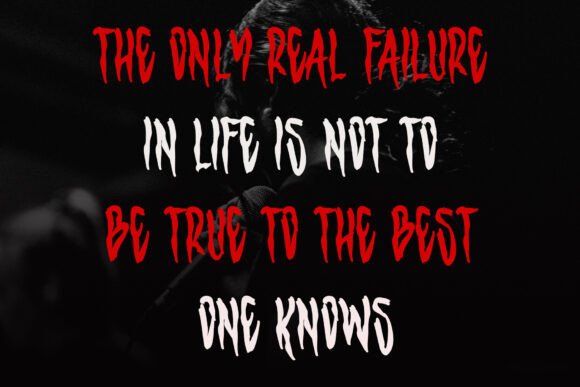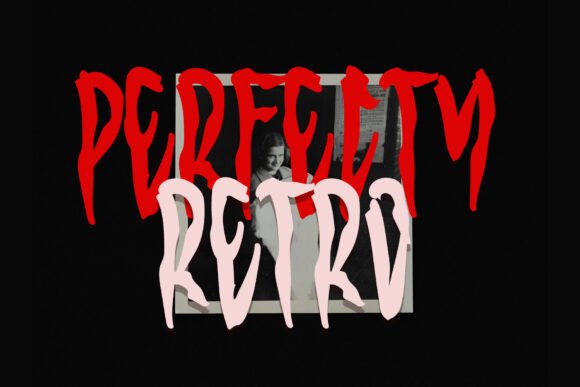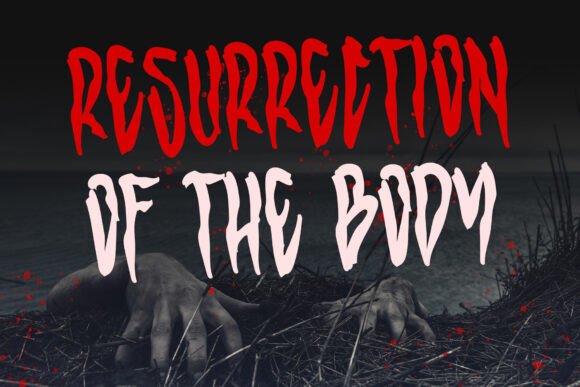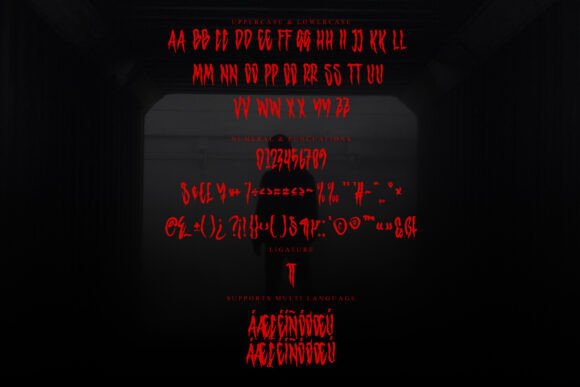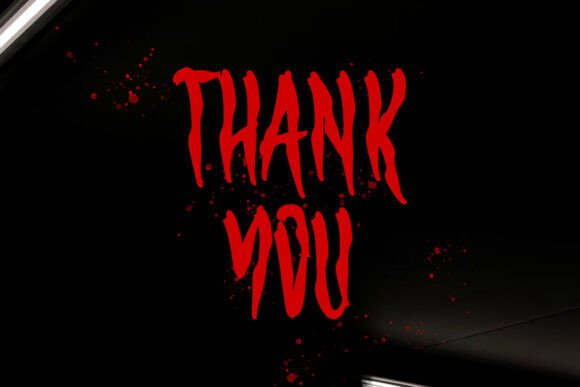
Introduction to Scared Display Font
Scared Display is a horror-inspired font designed to evoke a chilling and eerie atmosphere.
With its jagged, irregular letterforms and unsettling distortions, this font creates a sense of fear, mystery, and darknessโperfect for horror-themed designs .
Key Features of Scared Display Font
Why Choose Scared Display Font?